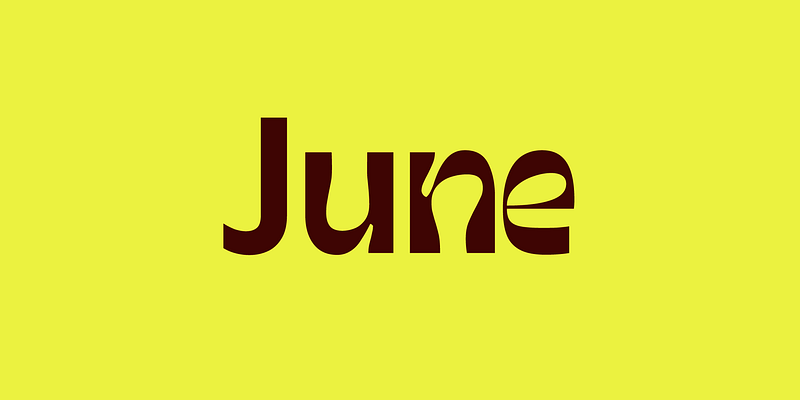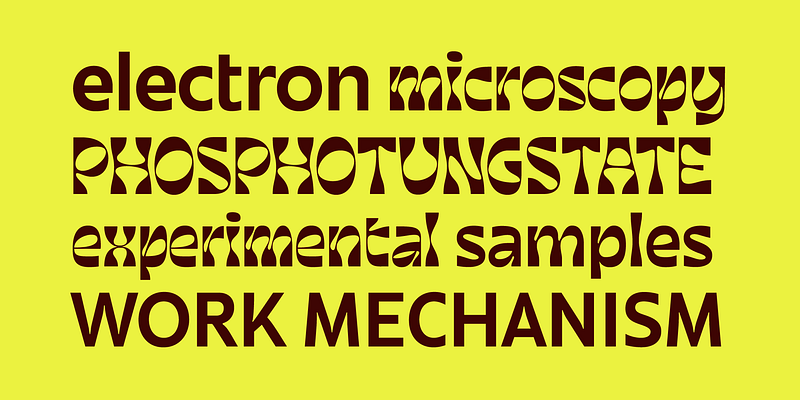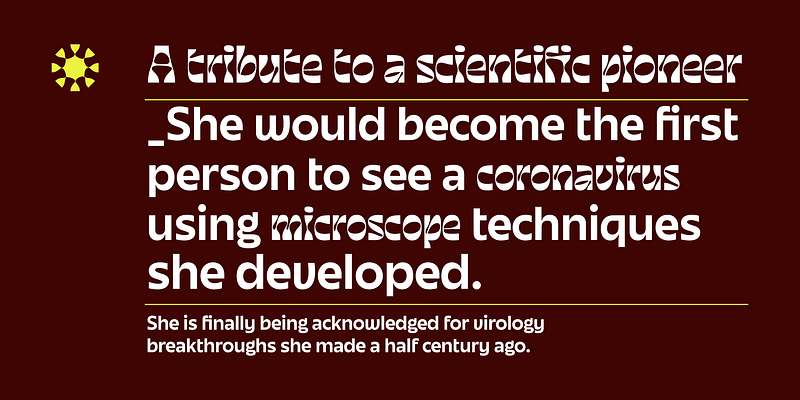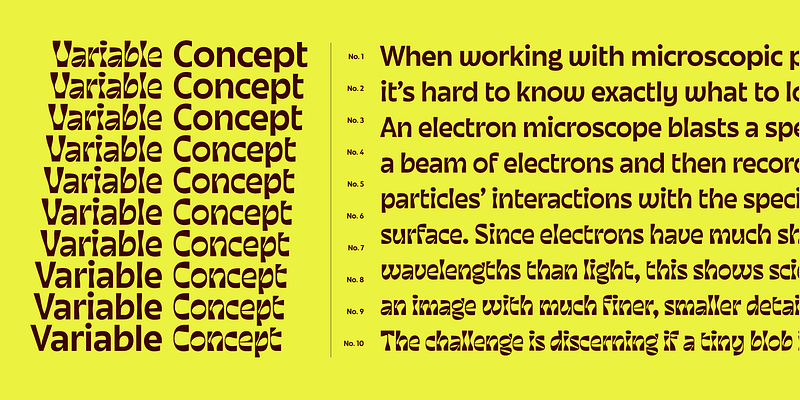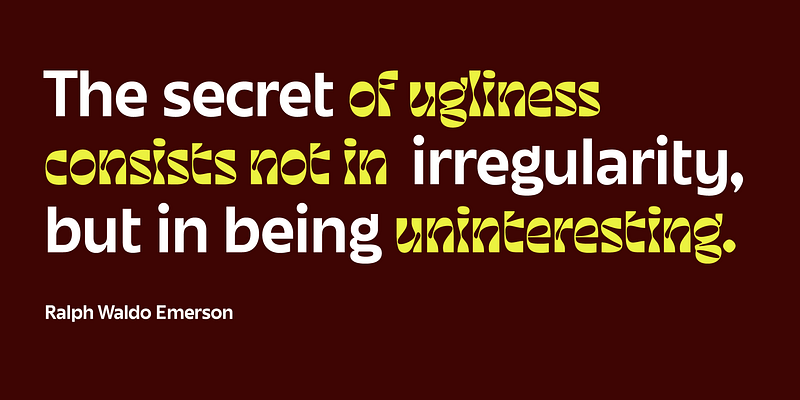
«June Expt» is a variable font concept designed between Fer Cozzi and Oscar Guerrero. What happens when you combine letters, love and wine? That’s how June started. Fer is represented by Curious, the right hemisphere, who tries to continually challenge itself by looking for new ways to express her ideas. She has a panoramic view, looks at the present and the future is impetuous, and takes risks. On the other hand, Oscar is represented by Active, the left hemisphere, a structured way that follows a precise method step by step. This side would focus on details, perception of patterns, strategies, and practical things. With two extremes –and everything in between– it creates a complex system of different flavor and textures.
June’s name is a tribute to June Almeida. She would become the first person to see a coronavirus using microscope techniques that she developed.
Born in Argentina, Fer Cozzi attended the University of Buenos Aires, where she completed a degree in graphic design and a postgraduate specialization in type design, completing several courses in calligraphy, lettering and type design. Fer currently teaches in the Master of Typeface Design at the University of Buenos Aires.
Fer Cozzi’s type explores rhythms, shapes and strokes where randomness and a not-so-obvious rationality meet. Expert in nothing, with opinions on everything and successful in all kinds of failures. When she’s not drawing letters, she’ probably dancing to the rhythm of 90s pop.